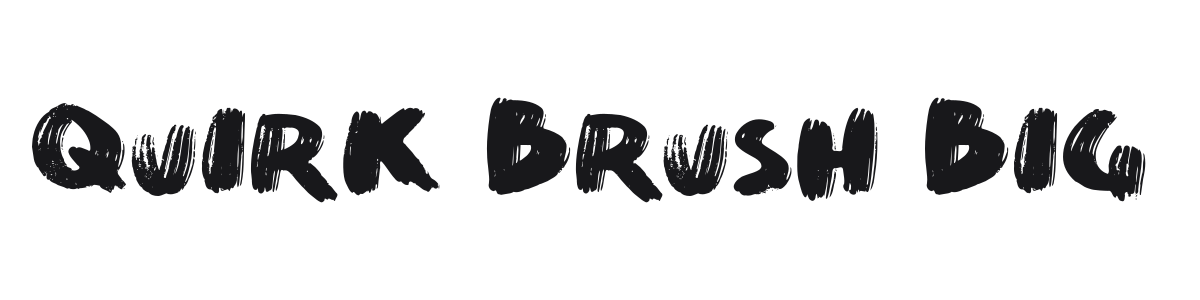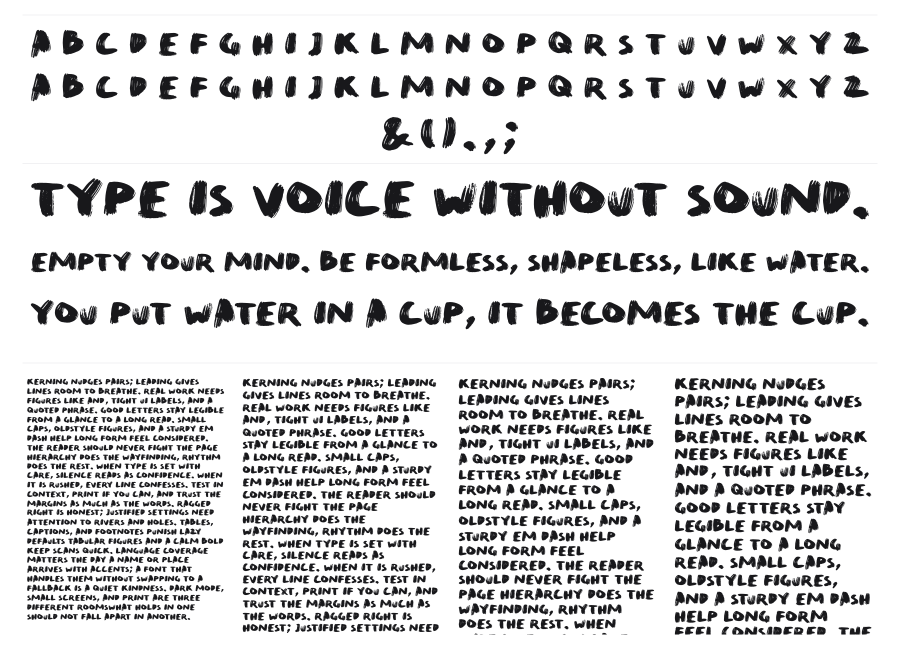
Quirk Brush Big
Quirk Brush BigLicense is a heavy brush display font with thick, bristle-textured strokes and a spontaneous hand-painted energy. The rough, irregular edges and chunky rounded forms give it a bold street-art personality that reads immediately at large sizes. It carries that loose, confident quality of something dashed off with a wide brush.